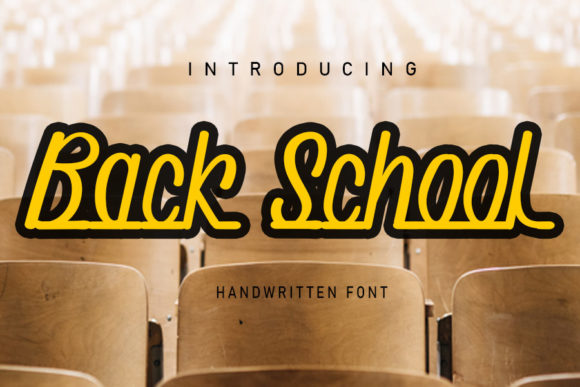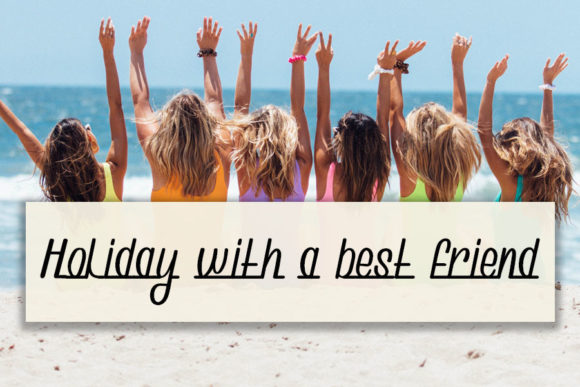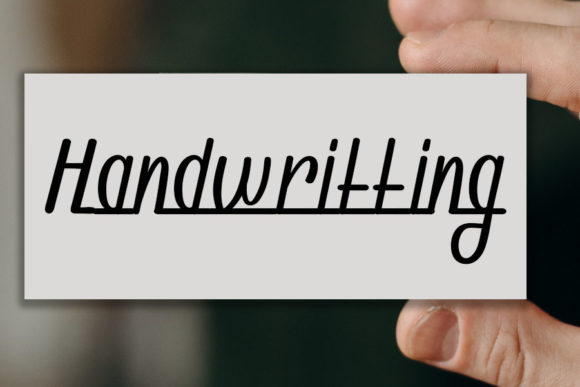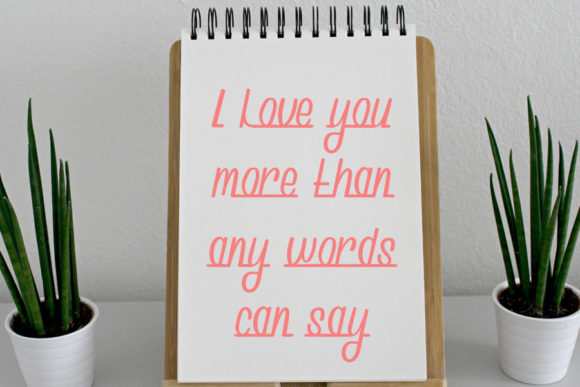
About Back School Font
Back School is a cute and trendy handwritten font. Its natural and unique style makes it incredibly fitting to a large pool of designs. The only limit is your imagination!